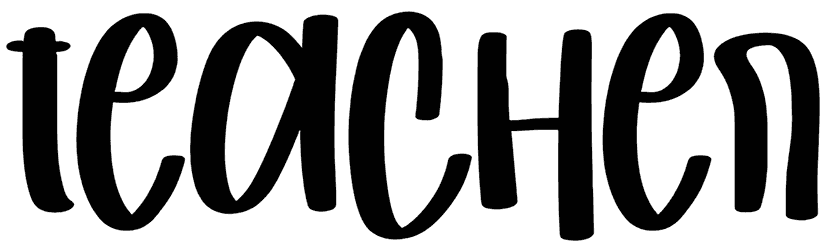
Teacher Font
For schemes that need to be shiny, the Teacher captures everyone’s attention and interest. The combination of lowercase and uppercase letters in this script font puts on a charm to manage any project from kickoff to launch.